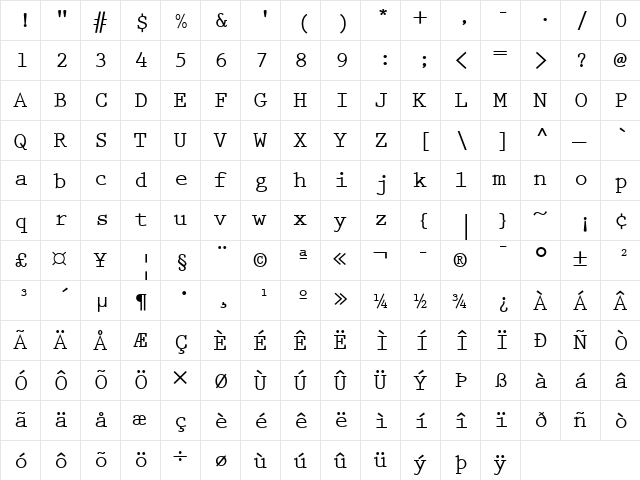
Prestige LT Elite Bold
Prestige LT Elite Bold Font Preview
Prestige LT Elite Bold
Design Context for Prestige LT Elite Typeface
Prestige LT Elite takes a measured approach to typography — its balanced proportions and neutral character make it a reliable workhorse for both digital and print work. The heavy weight commands attention and anchors typographic hierarchies.